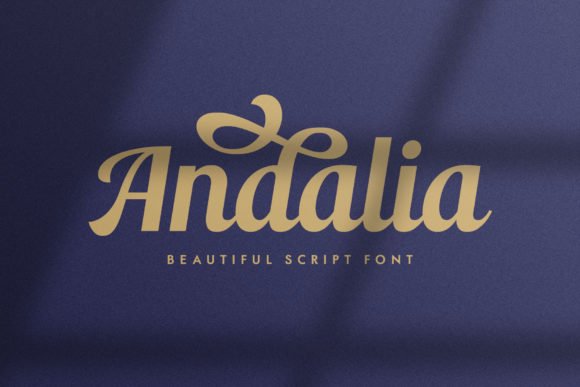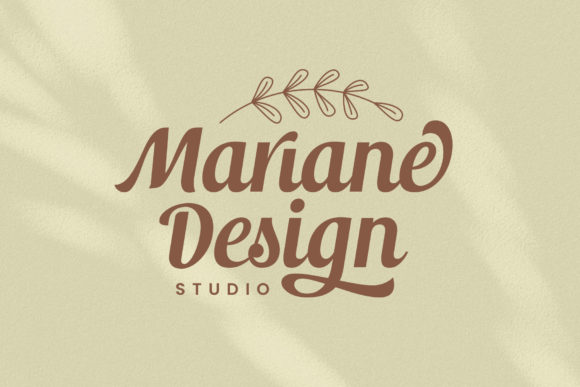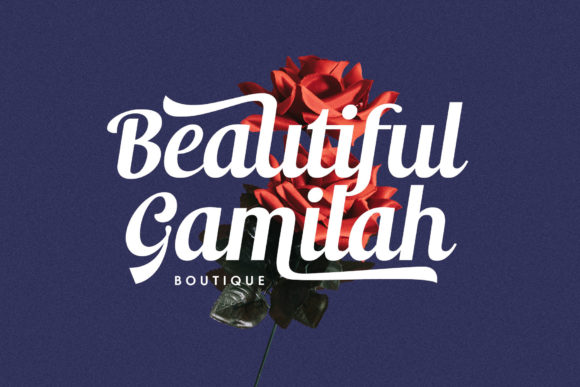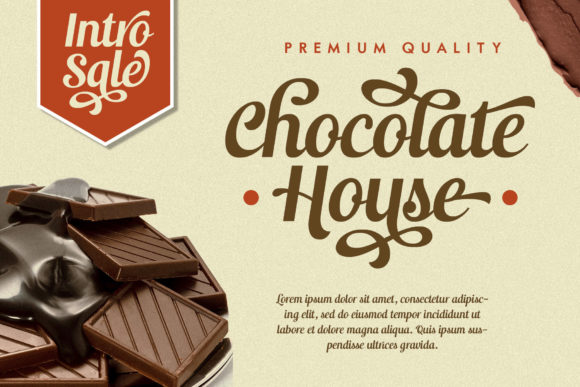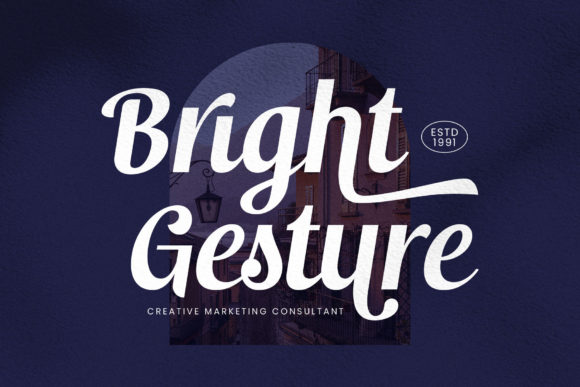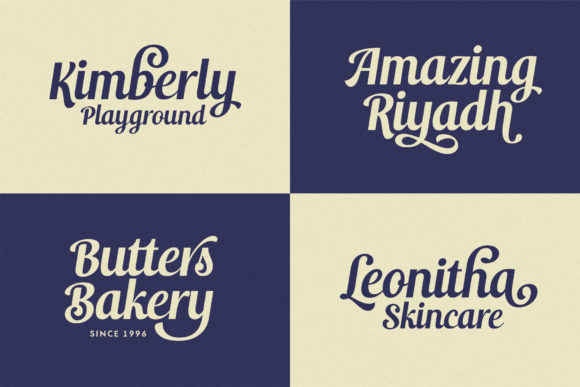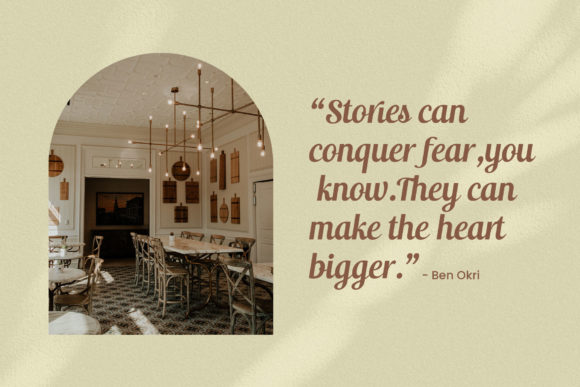
The Perfect Script for Your Masterpiece
Do you remember that moment when you were working on a design project and you couldn’t quite find the right font to match your vision? You scrolled through countless options, but nothing seemed to capture the essence of your creation. That’s when you stumbled upon it – a font that not only elevates your design but also tells a story. For many designers, this moment is a game-changer, and for those who have discovered it, there’s no going back.
Enter Andalia Font, a lovely and delicate script font that exudes elegance and class. Crafted specifically for designers who crave a beautiful and refreshing look, Andalia Font is the perfect addition to any project. Its PUA encoding ensures that you can access all of the glyphs and swashes with ease, giving you the freedom to get creative and push the boundaries of your design.
Andalia Font Key Features
- Font Family: Andalia Font is a modern script font, designed to be elegant and sophisticated.
- Unique Characteristics: Andalia Font features a unique blend of elegance and sophistication, with subtle flourishes and intricate details that set it apart from other script fonts.
- Language Support: Supports a wide range of languages, including Latin, Cyrillic, and Greek, making it a versatile choice for global applications.
Designer Review: Andalia Font
Overall, I think Andalia Font is a lovely addition to any designer’s toolkit. ✨ The elegant, cursive script is perfect for adding a touch of sophistication to any project.
- ✨ Elegant script design that’s perfect for formal or wedding invitations
- ✨ A wide range of languages supported, including Latin, Cyrillic, and Greek
- ✨ Smooth, connected strokes that make it a joy to read
- ✨ Suitable for both digital and print projects
- ⚠️ May not be suitable for projects that require a bold, modern look
- ⚠️ Limited font sizes may cause readability issues in certain contexts
- ⚠️ May require some manual adjustments to achieve the perfect look in certain design software
Overall, I think Andalia Font is a great choice for designers who want to add a touch of elegance to their projects. While it may have some limitations, its unique design and wide range of supported languages make it a valuable addition to any font collection.
Tip: Use Andalia Font for titles and headings to add a touch of elegance to your designs.
Tip: Use Andalia Font for custom typography projects, such as creating unique logos or graphics.
Tip: Use Andalia Font for presentations and documents that require a touch of sophistication.
The Andalia Font is ideal for:
- Designing elegant titles and headings.
- Creating custom typography projects.
- Adding a touch of sophistication to presentations and documents.
Alternative Fonts to Andalia Font for Designers
Playfair Display is a luxurious and elegant script font. It is ideal for use in headings, titles, and other high-impact design elements where a touch of sophistication is desired.
Comparison to Andalia Font: While Andalia Font has a more modern and minimalist feel, Playfair Display is more ornate and traditional. Playfair Display is better suited for formal or high-end designs, whereas Andalia Font is more versatile and can be used in a variety of contexts.
Montserrat is a modern sans-serif font with a strong, geometric feel. It is ideal for use in body text, signage, and other design elements where a clean and legible font is desired.
Comparison to Andalia Font: Montserrat is a more utilitarian font compared to Andalia Font, which has a more decorative feel. Montserrat is better suited for designs where a clear and concise message is the primary focus, whereas Andalia Font is better suited for designs where a touch of elegance and sophistication is desired.
Carolyna Pro is a modern script font with a feminine and elegant feel. It is ideal for use in headings, titles, and other high-impact design elements where a touch of whimsy and romance is desired.